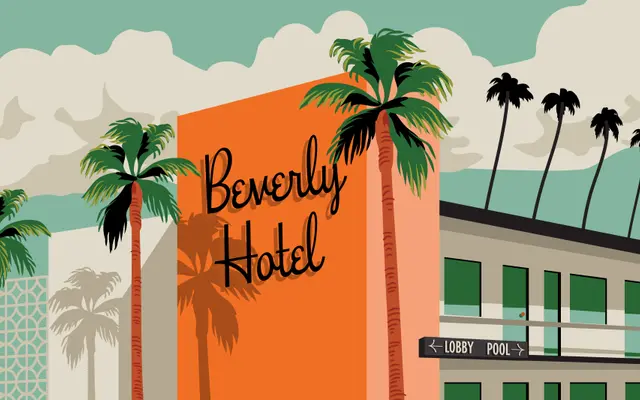
Beverly Drive
A left-leaning casual script by Amy Hood, drawn from the signage culture of Beverly Hills, from boutique shop fronts to apartment complex lettering.
Designed by Amy Hood of Hoodzpah, Inc., it pulls from two distinct ends of the Beverly Hills aesthetic: the polished Rodeo Drive shop signs and the kitschier logos of local apartment complexes. That range makes it adaptable across formal and informal applications, from wedding stationery to laminated diner menus. Available in a single Regular style with broad Latin Extended language support.
A left-leaning casual script with roots in mid-century American sign painting and commercial lettering traditions, placing it firmly in the script category with a retro-casual subcategory.